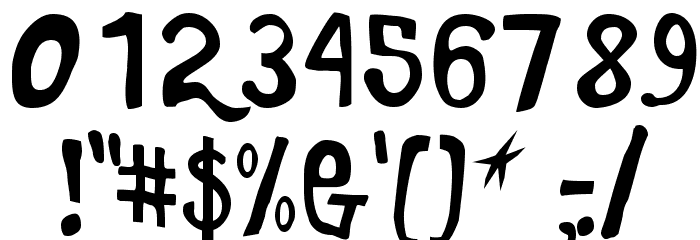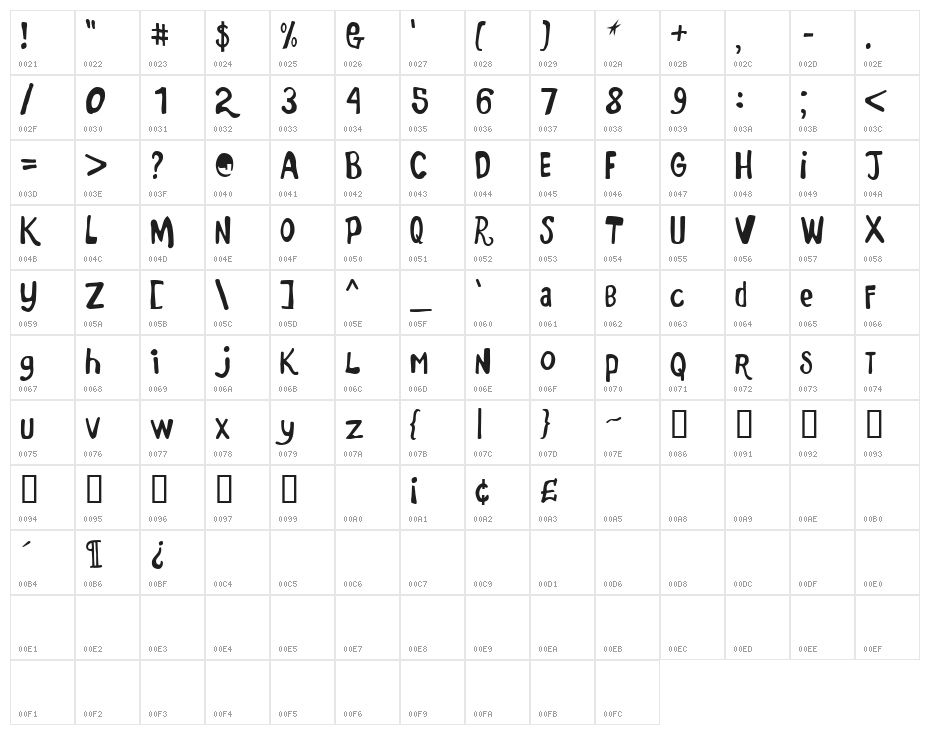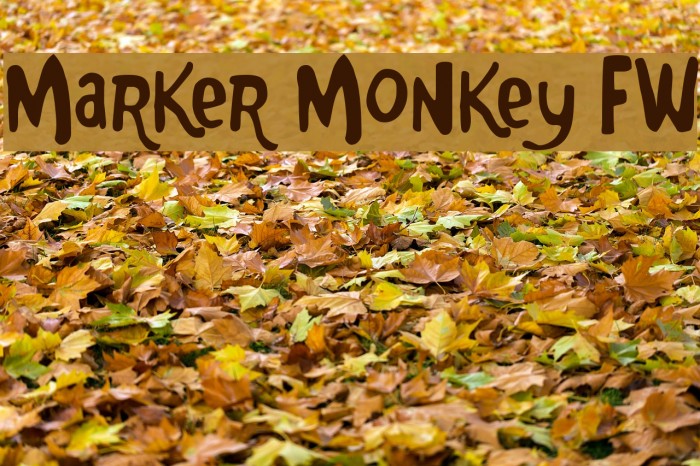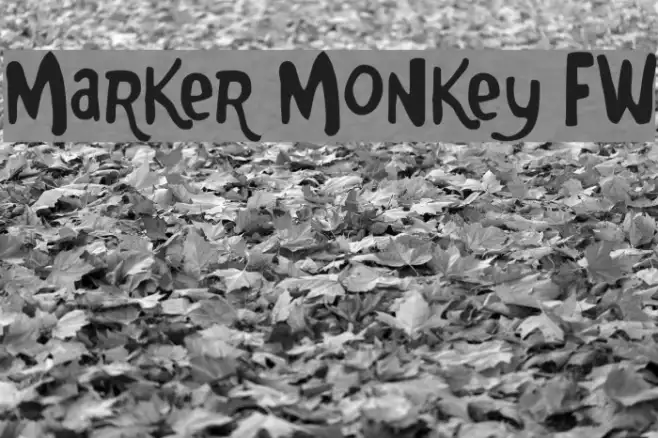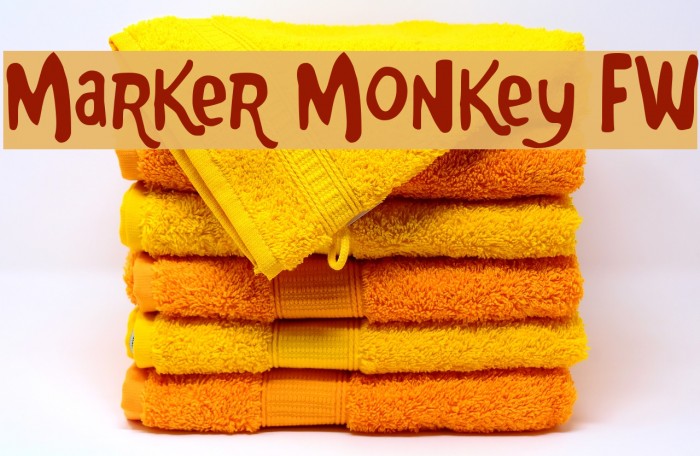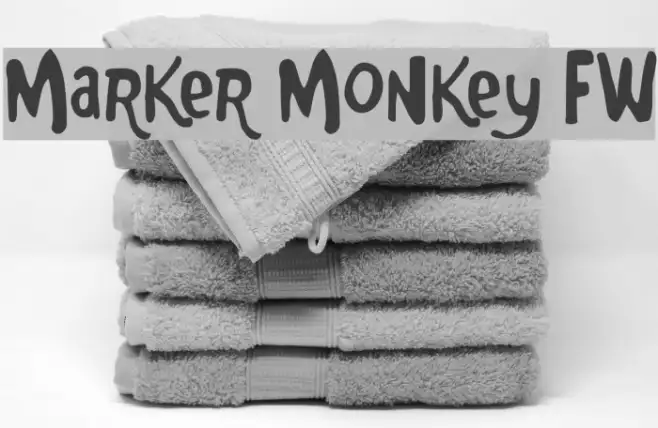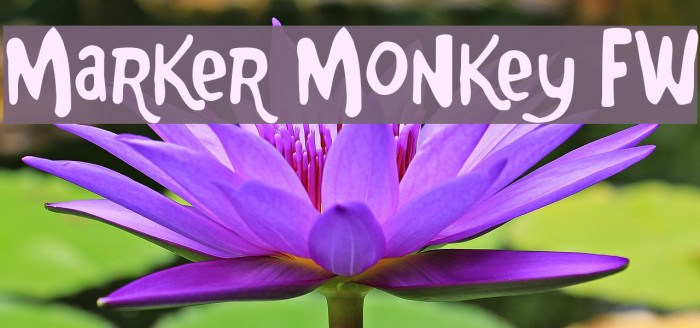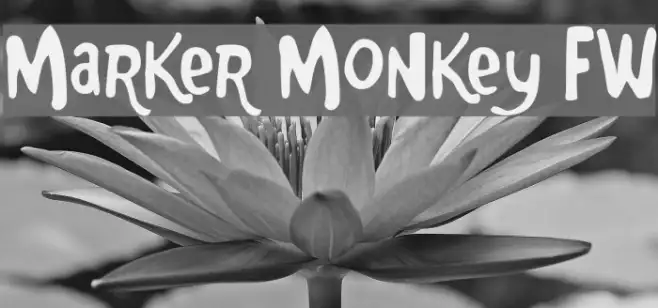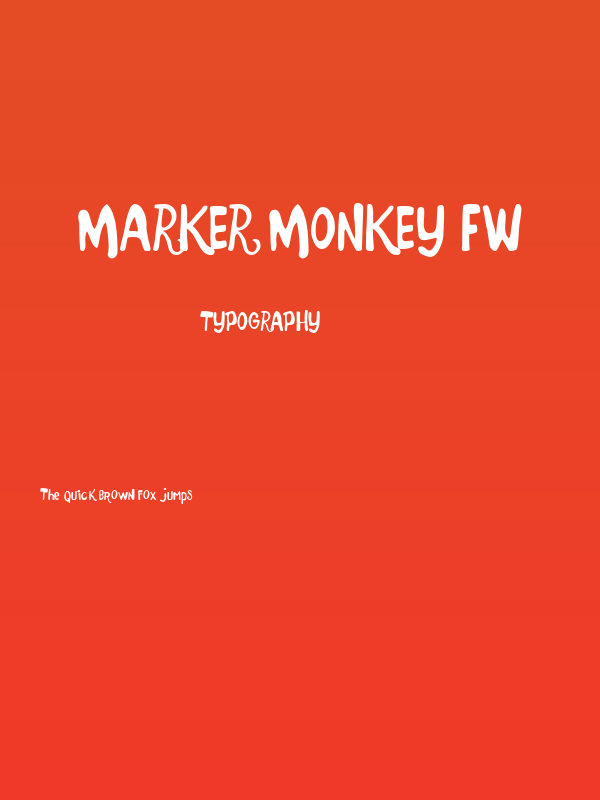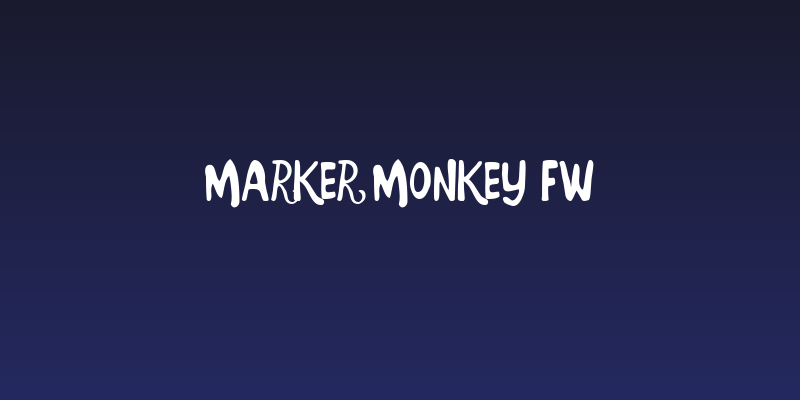
Marker Monkey FW Font
Marker Monkey FW Description
This playful and energetic font features a hand-drawn style with irregular, bold strokes that give it a lively and whimsical appearance. The characters are slightly uneven, adding to its charm and informal feel. The uppercase and lowercase letters maintain a consistent style, with rounded edges and a sense of movement. The numbers and special characters follow the same playful design, making it suitable for creative and fun projects. Its boldness ensures readability while maintaining a casual and friendly tone.
| Proposed Projects | Ideal for children's books, comic strips, playful branding, greeting cards, and creative posters. |